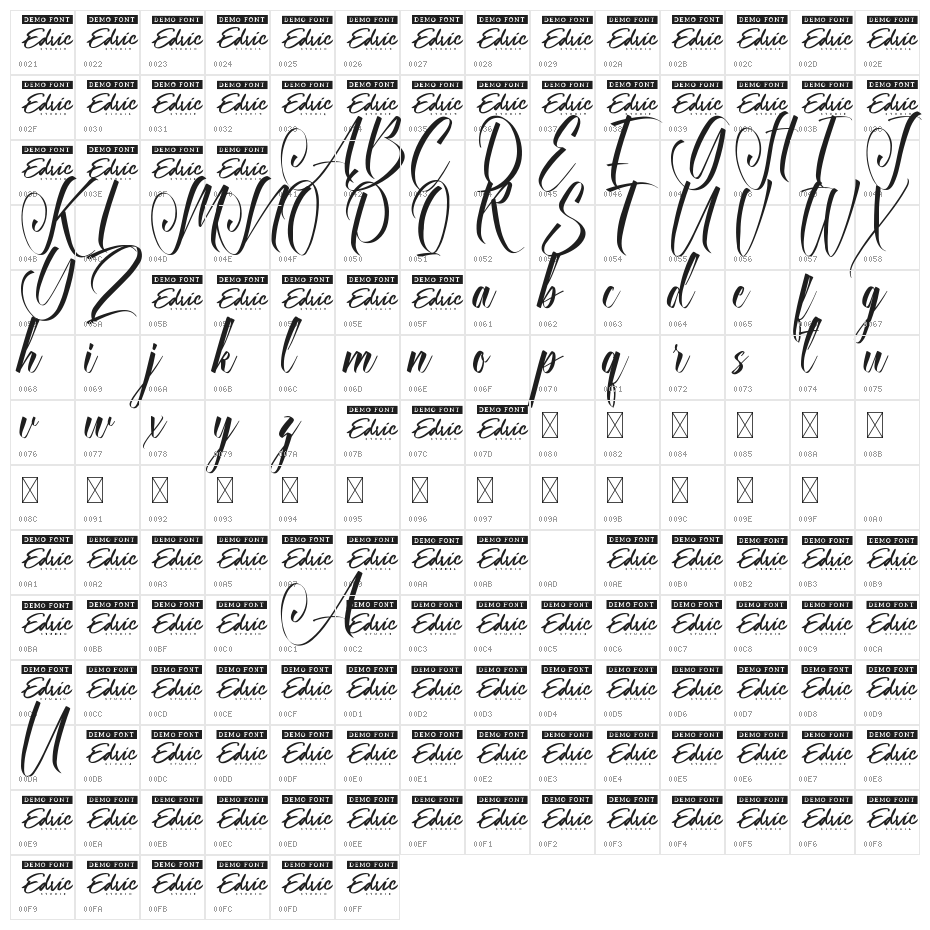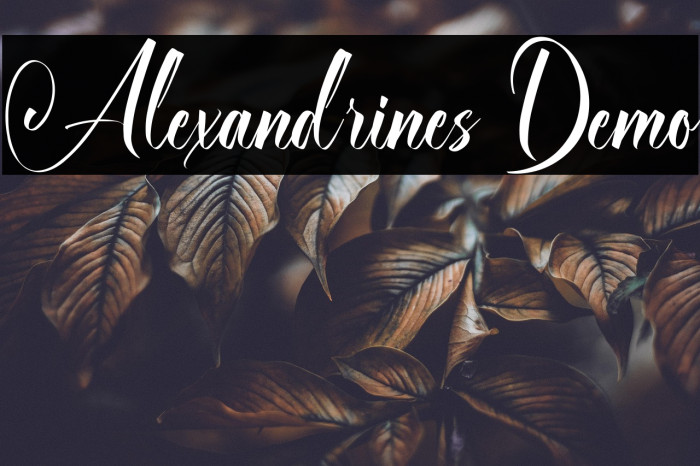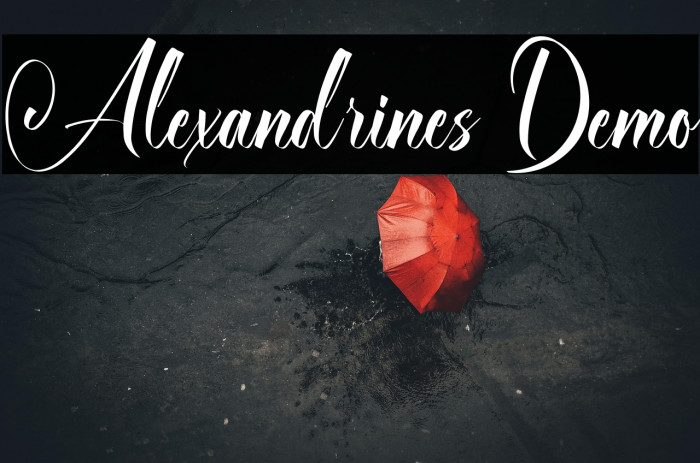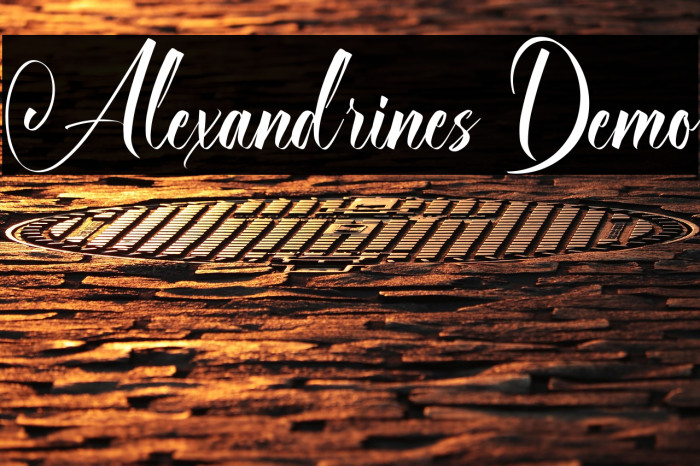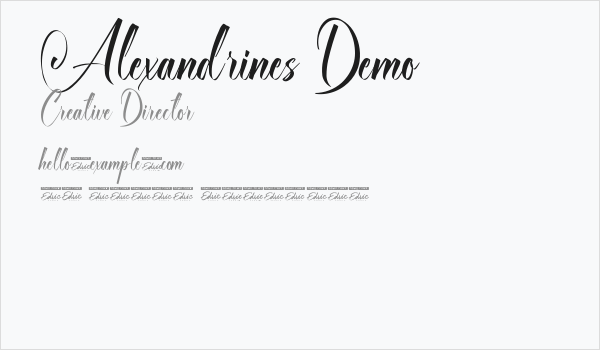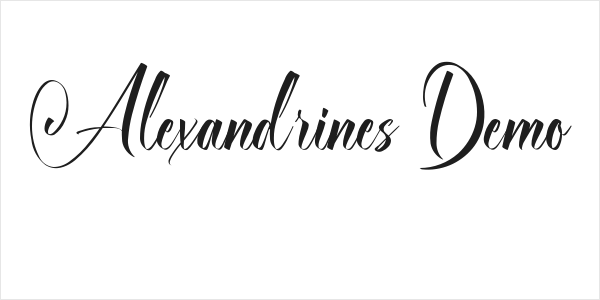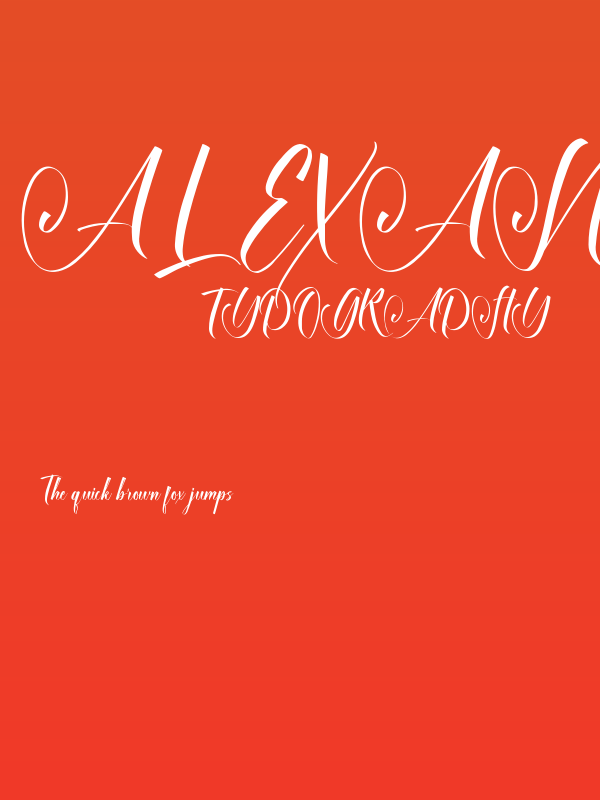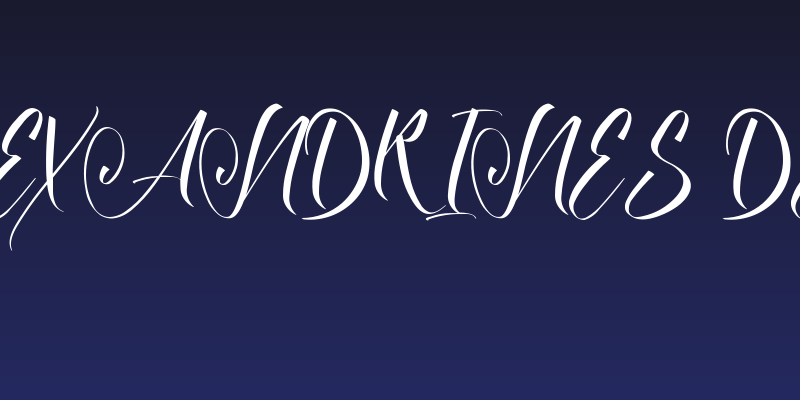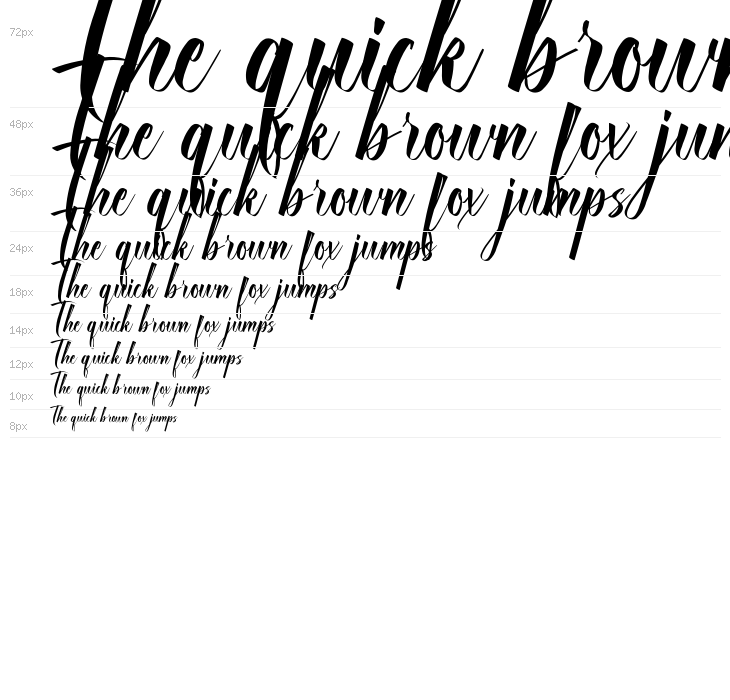
Alexandrines Demo Font
Alexandrines Demo Description
This font is a striking and elegant script typeface that exudes sophistication and flair. The uppercase letters are characterized by their sweeping, graceful curves and loops, giving them a sense of movement and fluidity. The lowercase letters maintain this fluidity with a slightly more compact form, yet they retain the same elegant style. The font has a high contrast between thick and thin strokes, enhancing its dramatic appearance. The characters are closely spaced, adding to the cohesive and flowing nature of the text. This font is ideal for projects that require a touch of elegance and style, such as wedding invitations, luxury branding, or high-end product packaging.